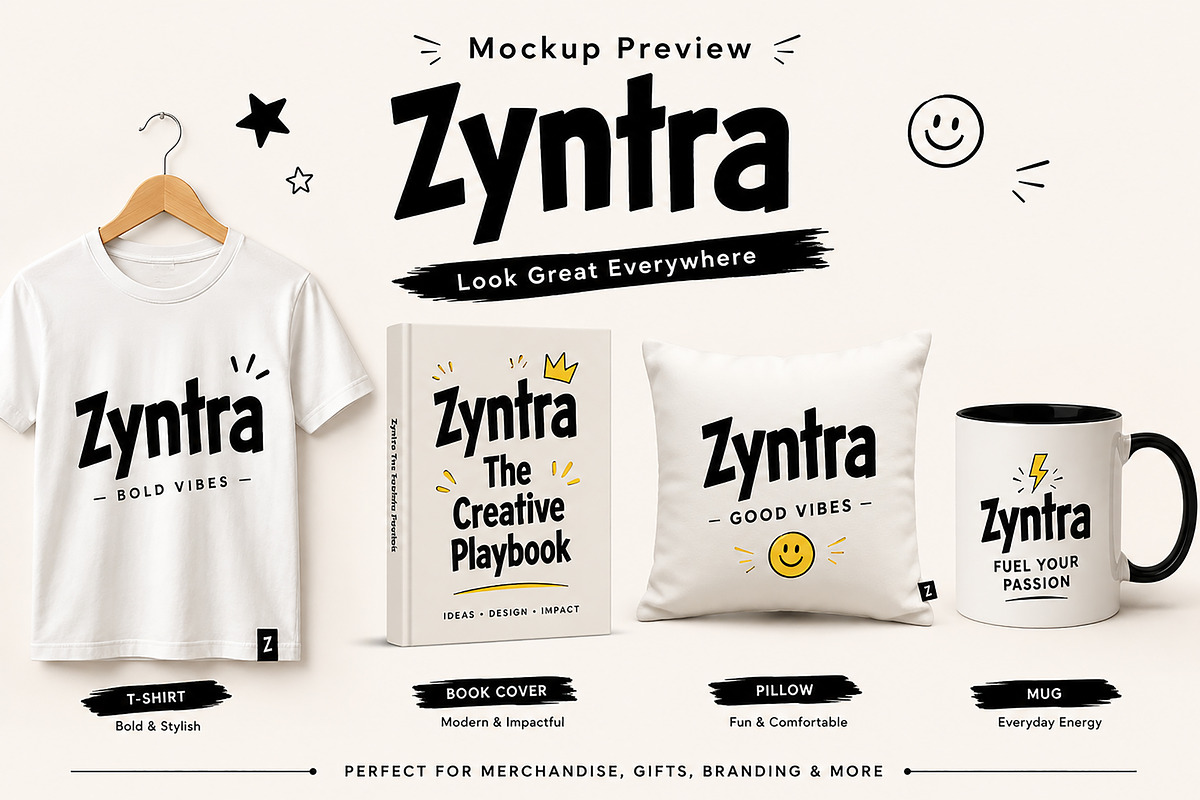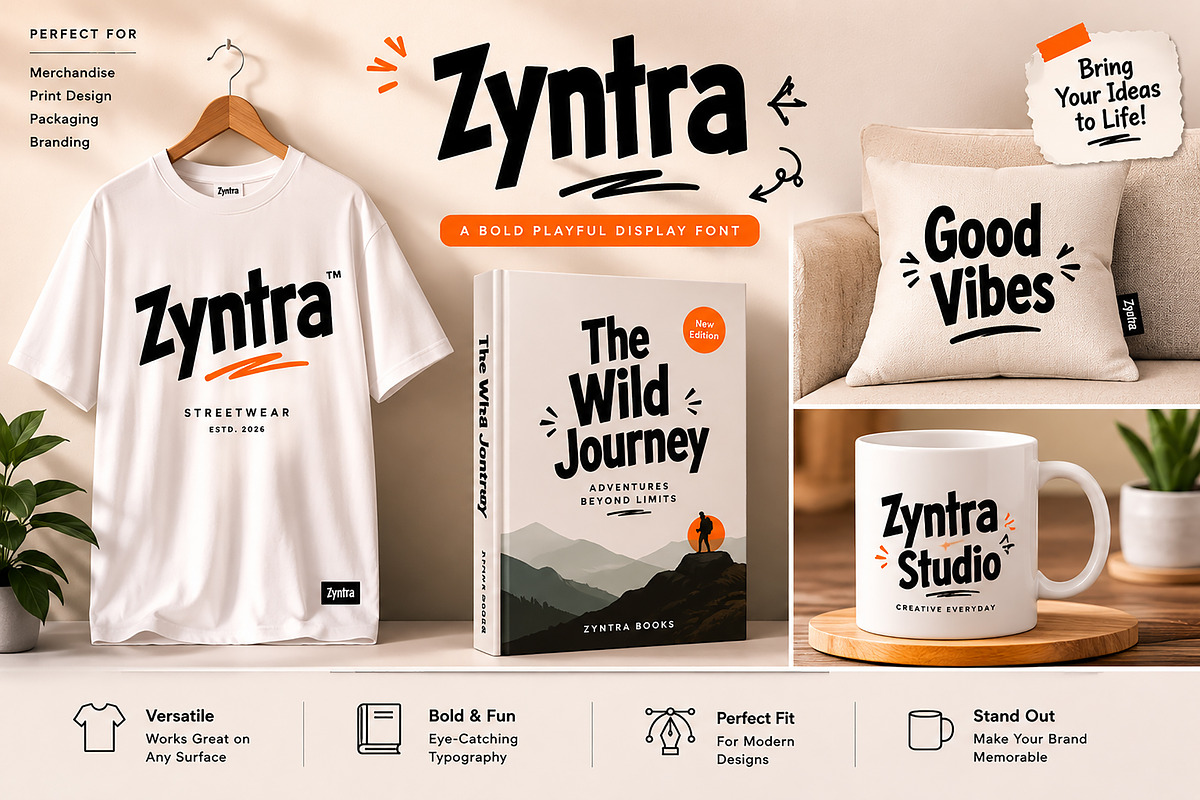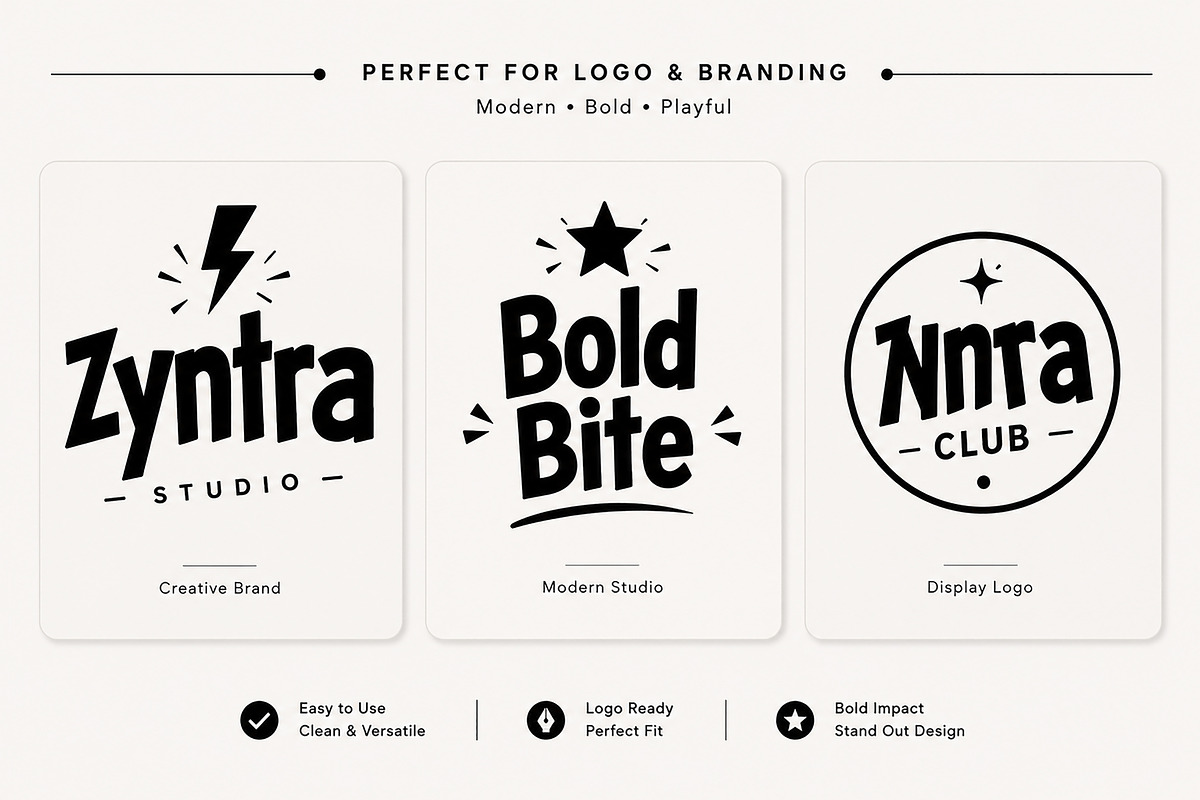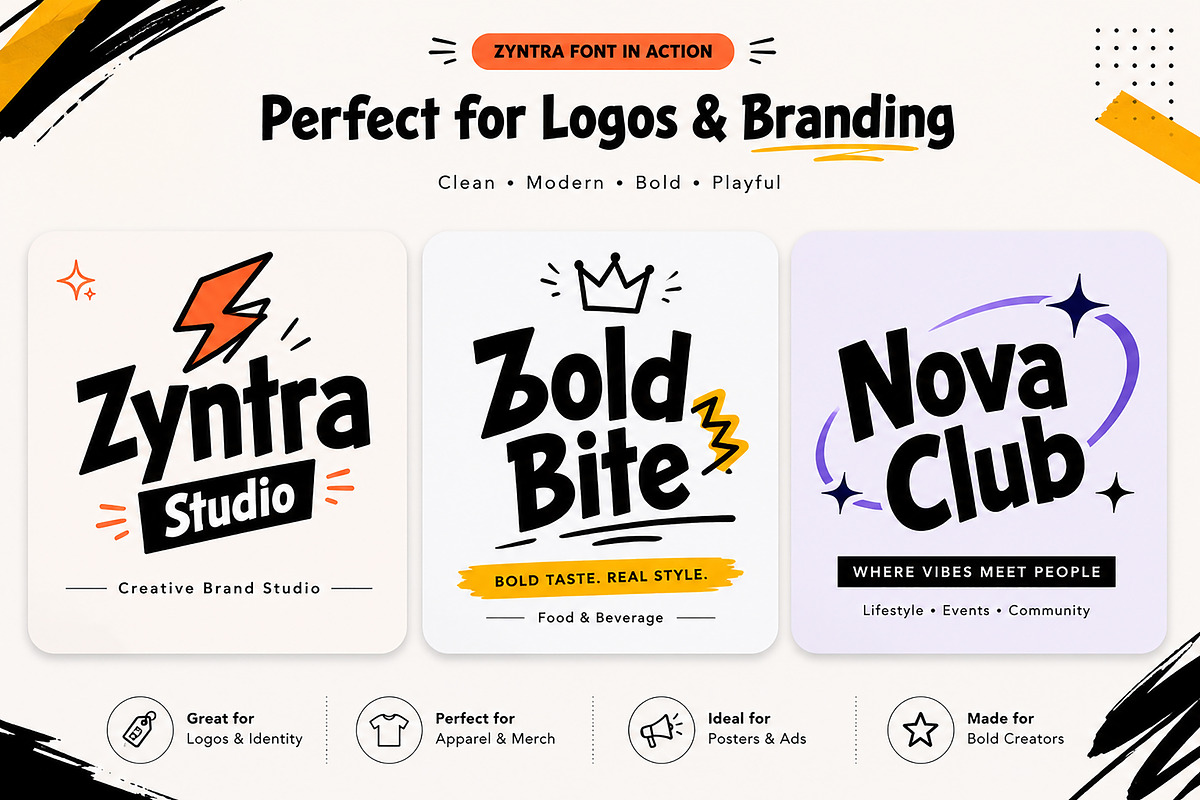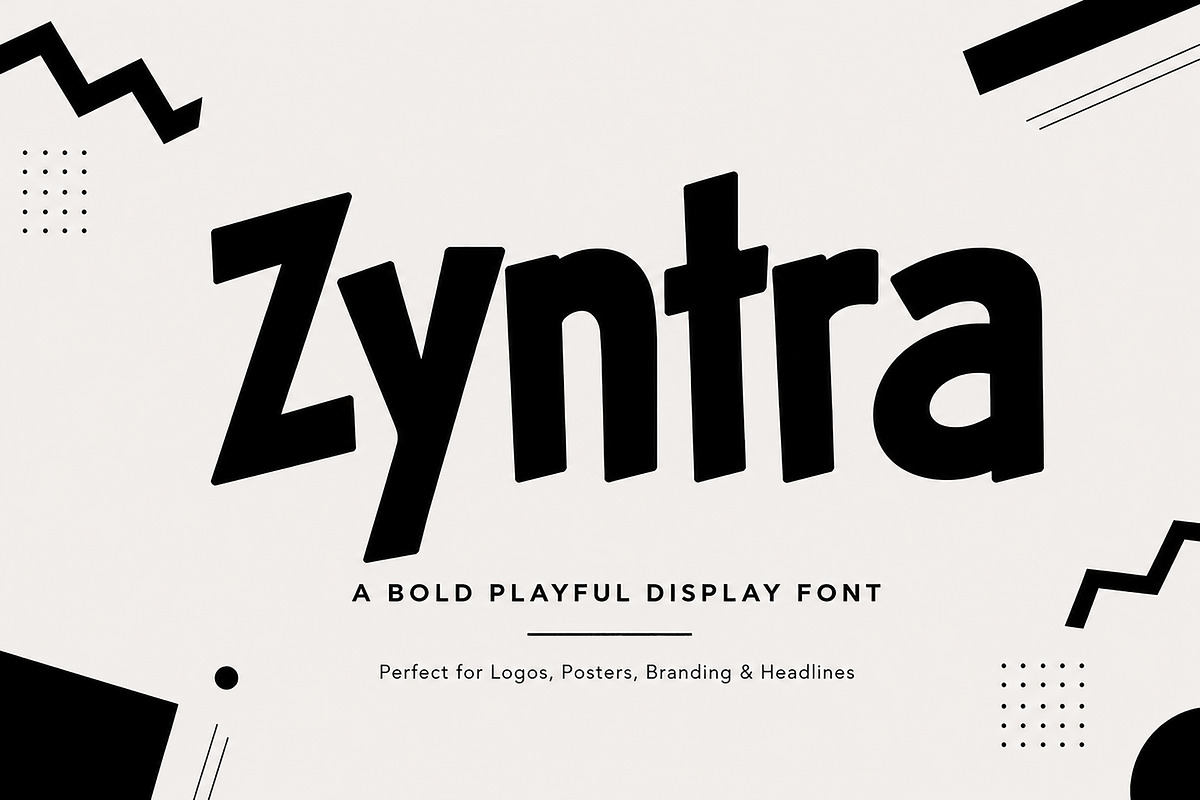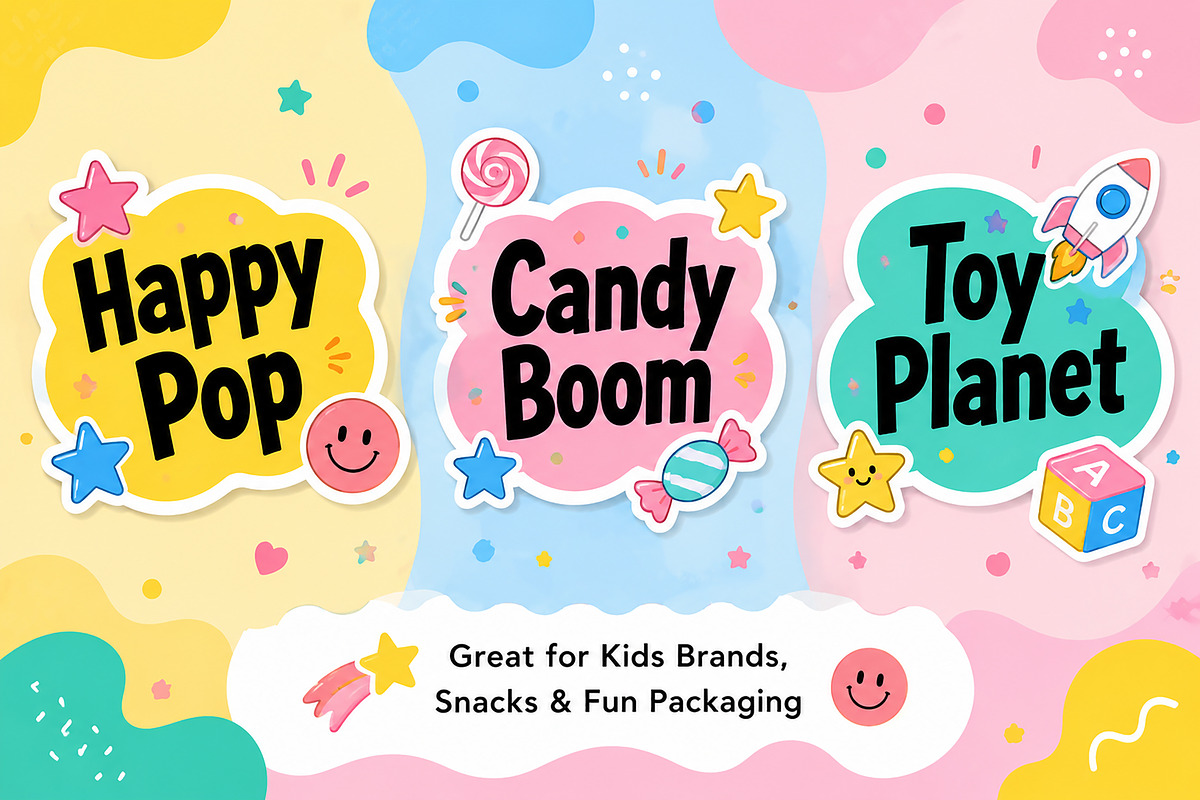
Zyntra
Zyntra – Bold Playful Display Font
Description
Zyntra is a bold, playful display font designed to make your typography stand out with confidence. Featuring chunky letterforms, dynamic angles, and a fun personality, this typeface is perfect for creating eye-catching headlines, memorable logos, modern branding, and vibrant promotional designs.
Whether you're designing for streetwear brands, creative businesses, packaging, posters, social media graphics, or merchandise, Zyntra delivers a bold visual impact while maintaining excellent readability. Its energetic style makes it an ideal choice for projects that need a modern, youthful, and expressive look.
From logo design to product packaging, Zyntra helps your creative ideas come to life with a fresh and distinctive character.
Branding & Visual Identity
Posters
Headlines
Product Labels
Streetwear Branding
T-Shirt Design
Album Covers
YouTube Thumbnails
Advertising
Event Posters
Stickers
Kids Products
Food & Beverage Branding
Creative Marketing Materials
Bring bold energy and playful personality to your next creative project with Zyntra.